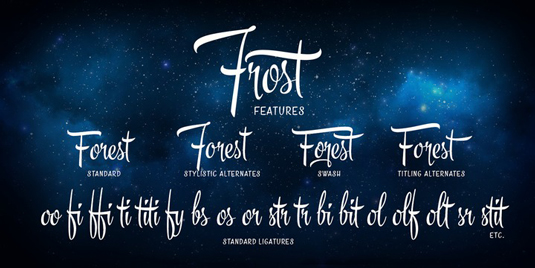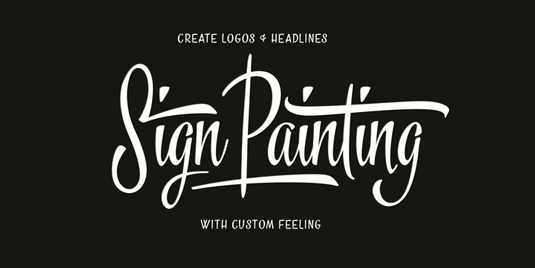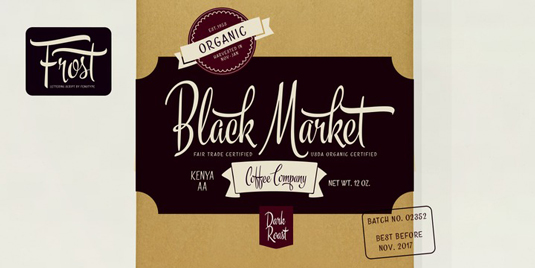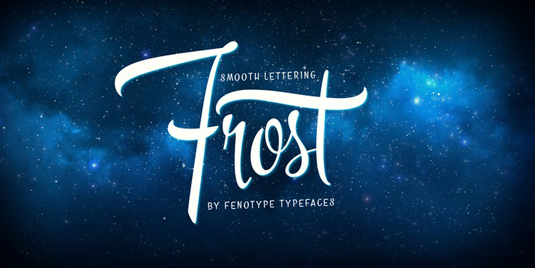
Font of the day: Frost
Every day we showcase the best fonts on the web. Today it's Frost by Emil Karl Bertell.
Frost by Emil Karl Bertell
Finnish type designer Emil Karl Bertell is no stranger to our font of the day posts, creating all manner of gorgeous designs. And today's offering is no exception. Bertell was influenced by the hand lettering and sign painting of the 1950s and 1960s when developing Frost. Available from MyFonts, the typeface is described as 'an effective and easy to use font family for creating ambitious headlines, logos & posters with a custom-made feeling."